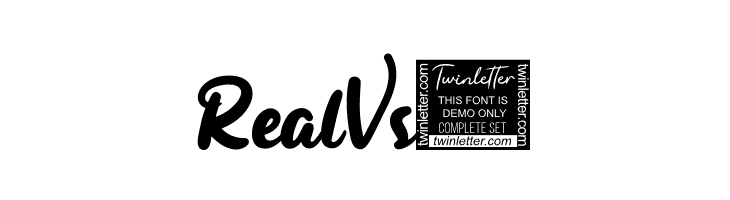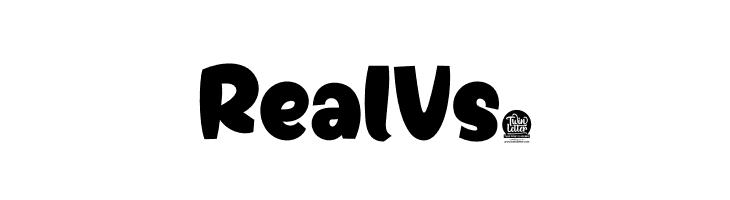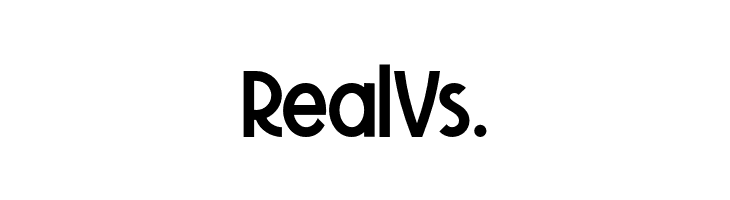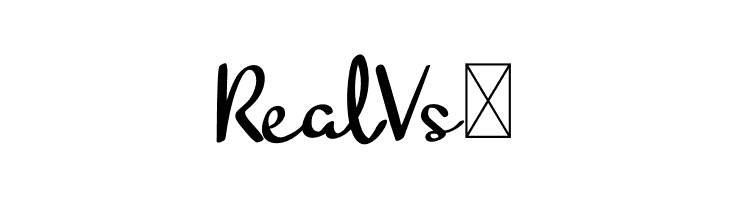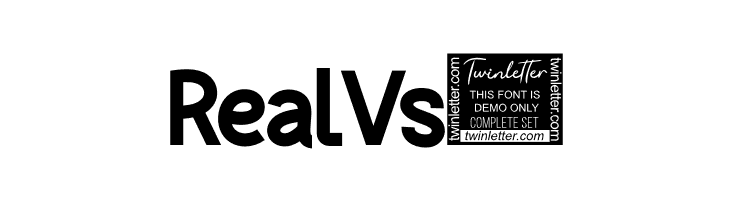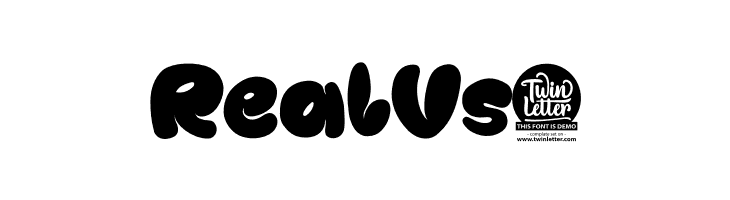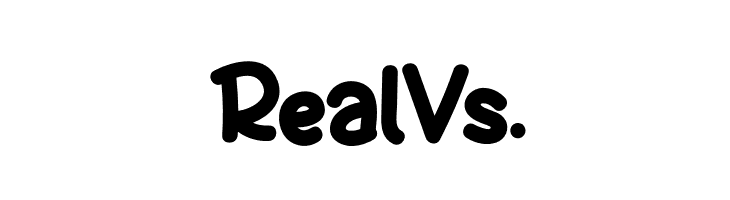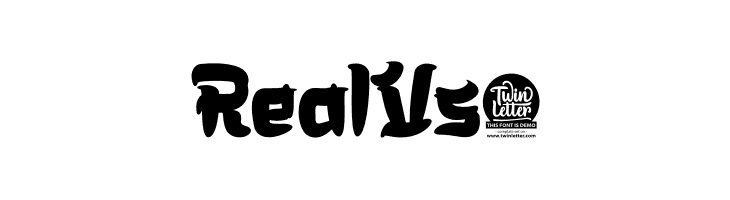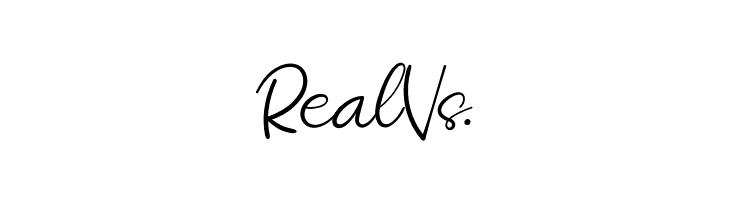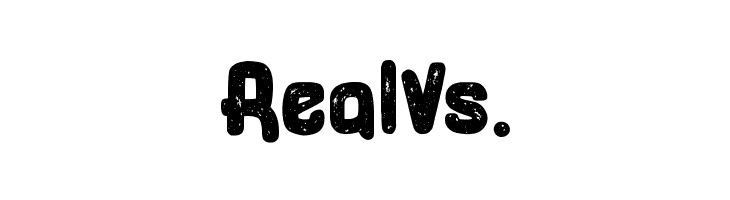
( Twicolabs Fontdation - Fahrizal Tawakkal - fontdation.com )
A bold, decorative font with vintage-inspired serifs and unique embellishments.
( Fonts by twinletter )
A bold, playful font with thick, rounded strokes and a whimsical style.
( Fonts by PutraCetol Studio )
A bold, playful font with rounded, bubbly characters perfect for fun projects.
( Fonts by PutraCetol Studio )
A bold, playful font with a bubbly, textured appearance.
( Fonts by Spork Thug Typography - Josh Wilhelm - www.lifewithouttaffy.com/taffy/blog )
A bold, distressed font with a vintage, weathered appearance.
( Fonts by Brittney Murphy Design )
A playful, hand-drawn font resembling sticky notes with a casual and whimsical style.
A modern, italicized typeface with bold, angular lines and a dynamic slant.
A bold, modern font with clean, geometric lines and a professional appearance.
A sleek, thin, italicized font with a modern and dynamic style.
A modern, geometric font with a clean and elegant design.
( Fonts by Stuck At Two )
A geometric, maze-like font with intricate line patterns and a bold, modern style.
( Fonts by Alex Squack - http://twitter.com/NoGoodToMe )
A distressed, hand-drawn font with a grungy, artistic style.
A bold, artistic font with expressive strokes and a playful, rebellious style.
A playful, handwritten font with a whimsical and elegant style.
( Fonts by Nur Solikh )
A bold, handwritten font with a playful and modern style.
A bold, flowing script font with elegant, cursive letterforms.
A bold, angular font with a modern, edgy style and high contrast.
A playful, bold font with rounded, bubble-like characters perfect for creative projects.
A playful, bold script font with smooth, flowing curves and a handwritten style.
A bold, modern sans-serif font with clean lines and a strong presence.
A playful, handwritten script font with smooth, flowing curves.
A playful, bold, and rounded font with a hand-drawn aesthetic.
A playful and elegant handwritten script font with flowing, cursive letterforms.
A playful, casual handwritten font with smooth curves and a friendly appearance.
( Fonts by twinletter )
A bold, playful font with rounded, thick strokes and a whimsical style.
( Fonts by twinletter )
A bold, playful font with thick, rounded strokes and a hand-drawn feel.
( Fonts by twinletter )
A bold, geometric font with playful cutout designs.
( Fonts by Two Us Studio )
A bold, distressed font with a vintage, textured appearance.
( Fonts by Baka - Kyakirun - bakafonts.kyakirun.com )
A bold, geometric font with a pixelated, digital aesthetic.
( Fonts by Ryan Splint )
A bold, decorative font with a stencil-like, industrial design.
A bold, modern sans-serif font with geometric lines and a clean, cohesive design.
A bold, modern sans-serif font with a geometric and rounded style.